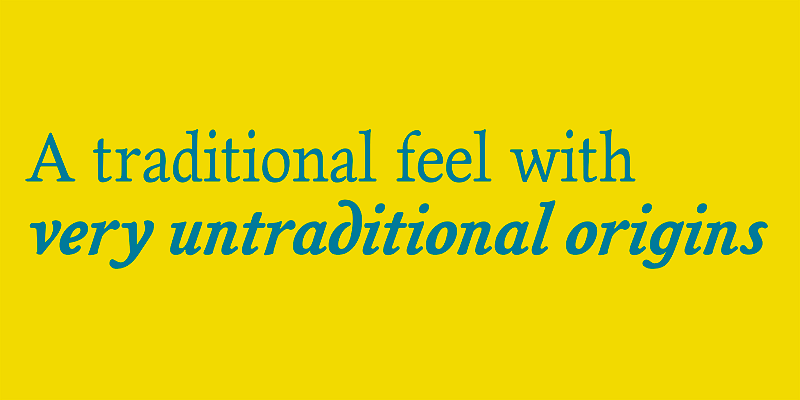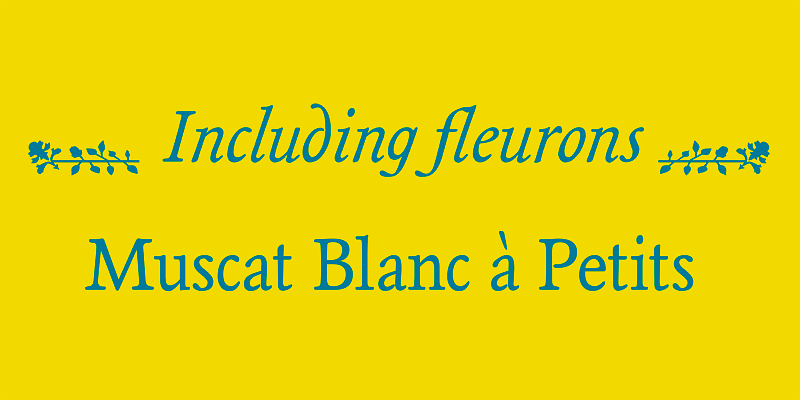
Magpie is a faithful and elegant serif typeface designed for long-form text setting, especially books. Its compact range of four styles offer precision and expression in any project.